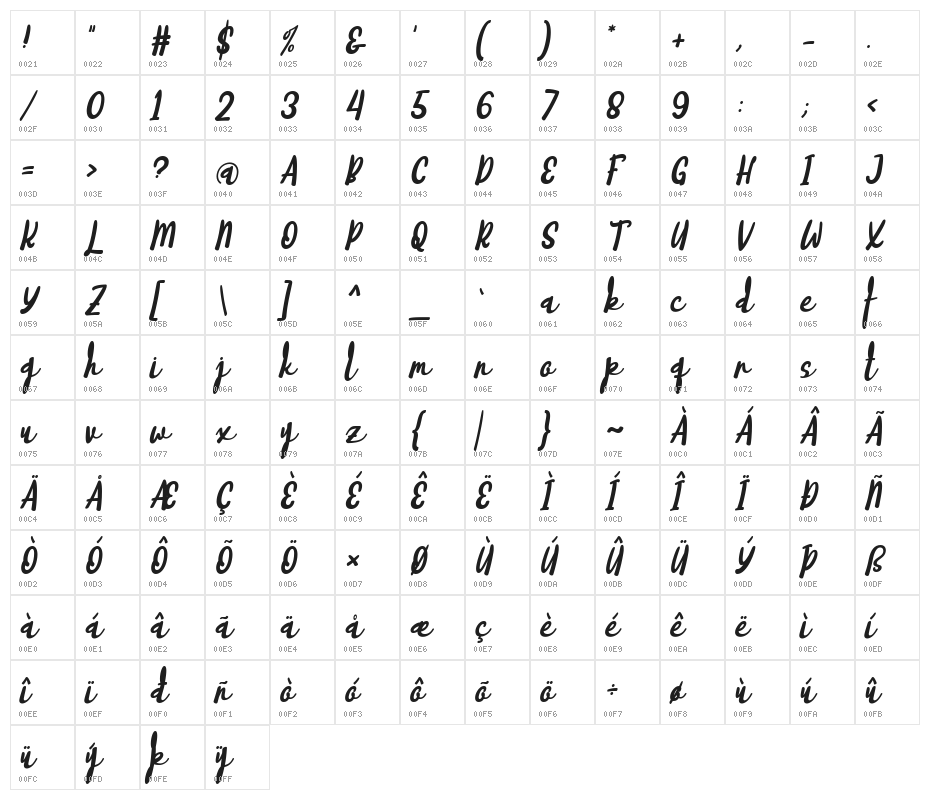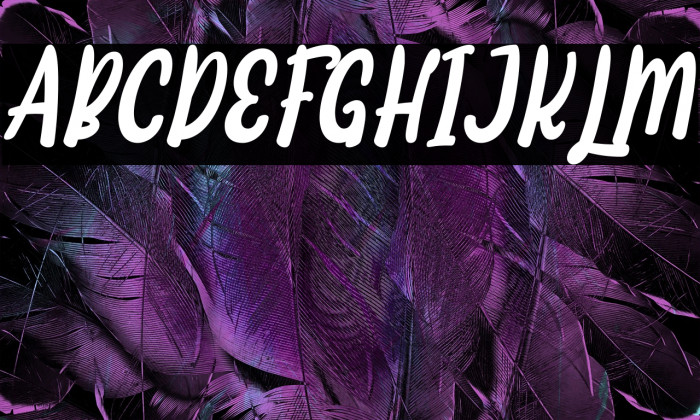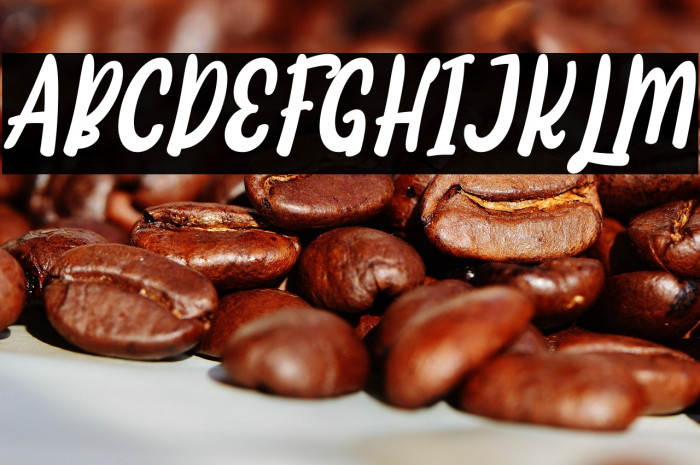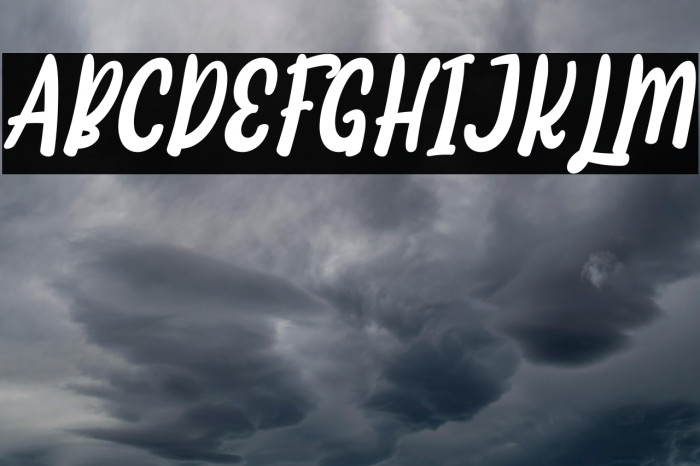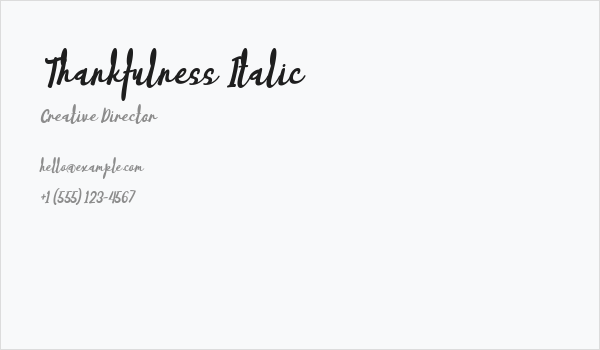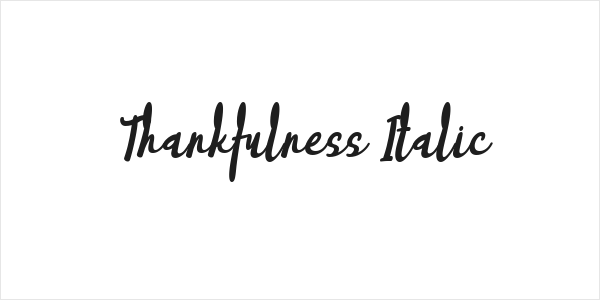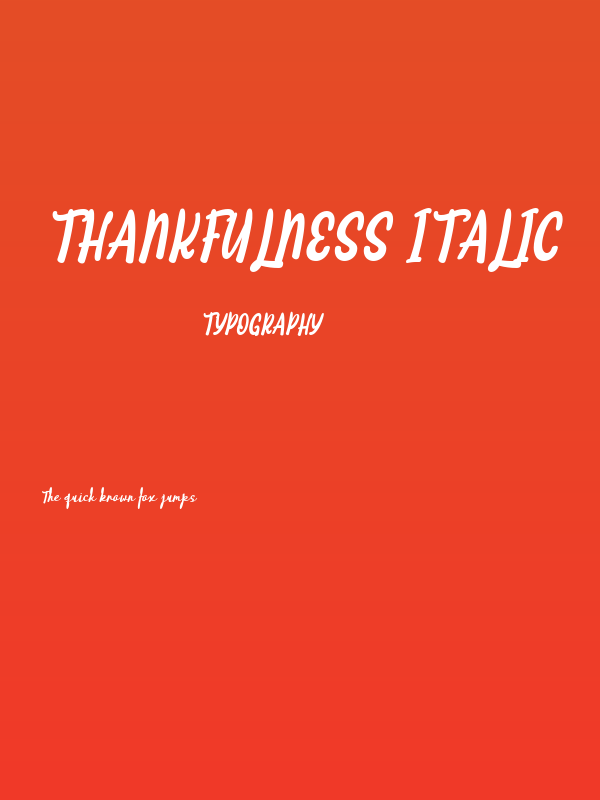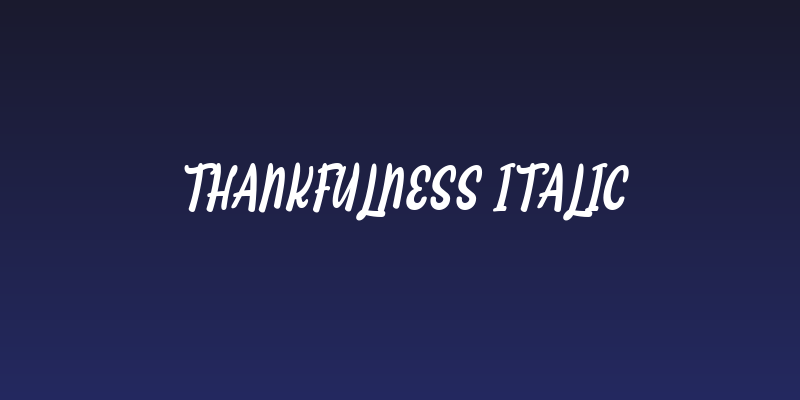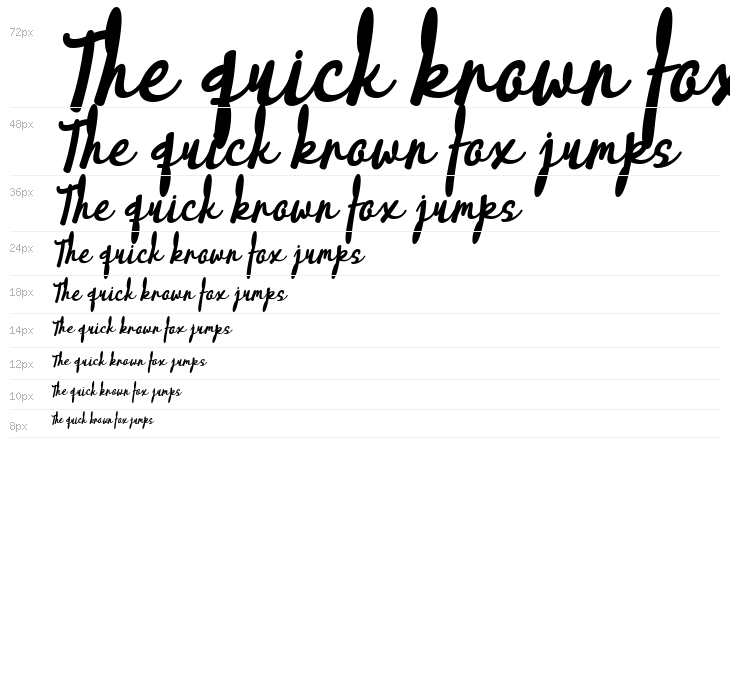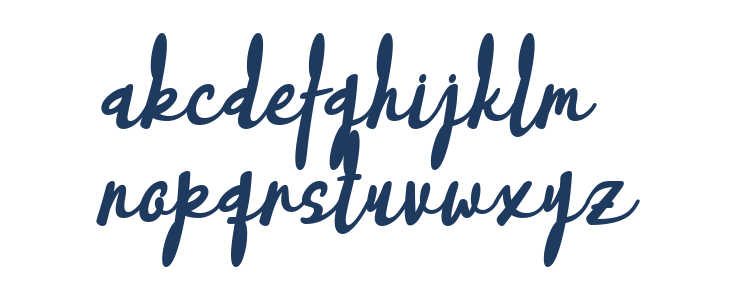
Thankfulness Italic Font
Thankfulness Italic Description
This font exudes a lively and dynamic character with its bold, flowing script style. The letters are connected in a cursive manner, giving it a handwritten feel that is both elegant and casual. The uppercase letters are tall and slightly slanted, while the lowercase letters maintain a consistent flow with smooth curves and loops. The numbers are bold and clear, matching the overall style of the alphabet. Special characters are creatively integrated, maintaining the playful and expressive nature of the font. This style is perfect for projects that require a personal touch, such as invitations, greeting cards, or branding materials.
| Proposed Projects | Ideal for invitations, greeting cards, branding, and any project needing a personal, expressive touch. |